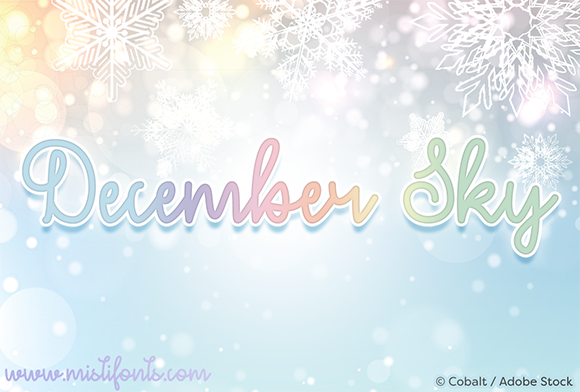
HomeScript FontsDecember Sky Font Script Fonts December Sky Font FacebookXPinterestWhatsApp About December Sky Font December Sky is a festive, monoline script font that is perfect for your craft and design projects! DOWNLOAD ON CREATIVE FABRICAThis font is sold and delivered by Creative Fabrica. Font Canyon may earn a commission if you buy through this link. People also explored Simplicity Angela Font Edrosa Font Lieselotte Script Font ABTS Aviator Billishin Font Farmhouse Font Staychill Font Adelwish Font Aaux Next Wide 349 0 TagsDecember Sky Font Previous articleVampire Heart FontNext articleLadisme Font LEAVE A REPLY Cancel reply Comment: Please enter your comment! Name:* Please enter your name here Email:* You have entered an incorrect email address! Please enter your email address here Website: Save my name, email, and website in this browser for the next time I comment. Personal Use Free Aliqa Personal Use Free Read more about this font Bonifaciy Personal Use Free Read more about this font Styledeep Personal Use Free Read more about this font Baby Love Personal Use Free Read more about this font BLOG Top 10 Handwritten Fonts That Elevate Your Designs Top 10 Handwritten Fonts That Will Elevate Your Designs Handwritten fonts bring a warm, personal touch to every creative project. Whether you're designing logos, invitations,... Transform Your Website: Elevate Your Typography with 7 Best Web Font Generators Top 7 Google Fonts Alternatives for Faster and Privacy-Friendly Web Design (2025) Using Fonts in Digital Marketing: Tips to Strengthen Your Brand Identity